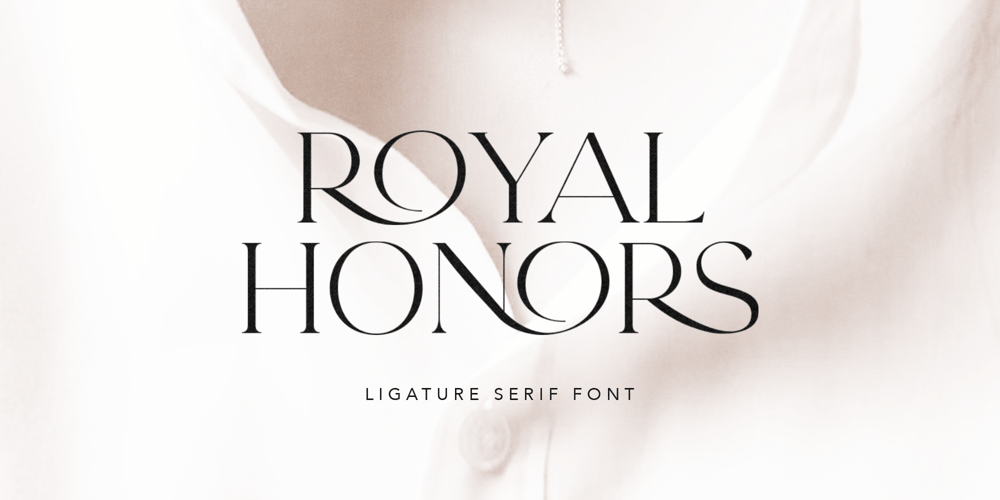
Royal Honors
Royal Honors font
Royal Honors Font Family was designed by Sarid Ezra, Dzikrul Aulia and published by Bale Type. Royal Honors contains 1 styles and family package options. Royal Honors is a modern and elegant serif with many ligatures that will make your project more stunning and eye-catching. You can use this font for any project, such as branding, logo, magazine, quotes, etc. You can get beautiful design just from elegant ligatures in lowercase and uppercase. This font also support multi language.